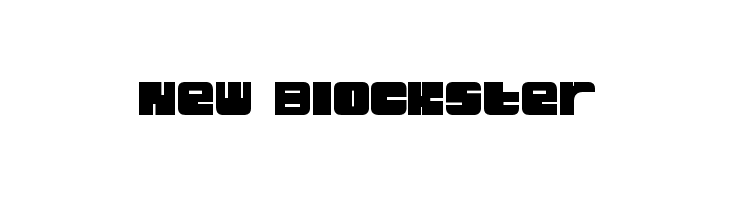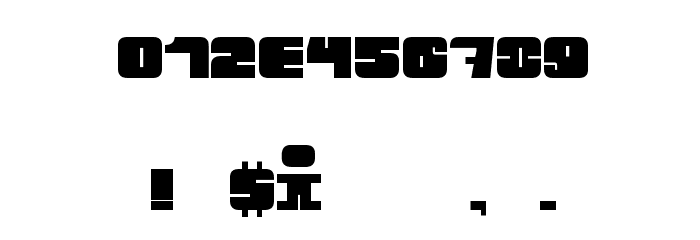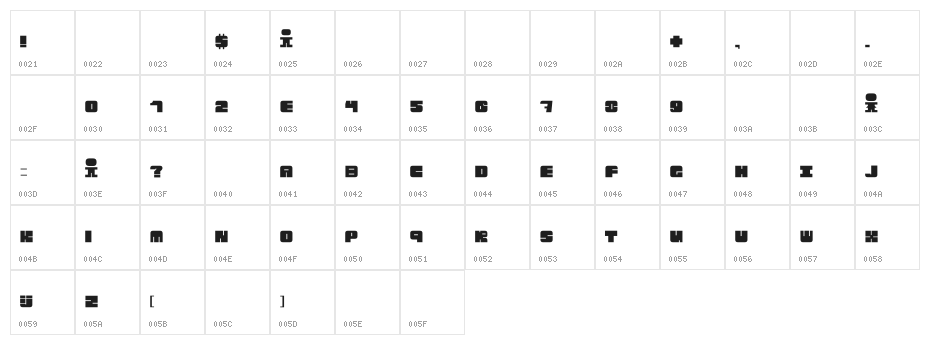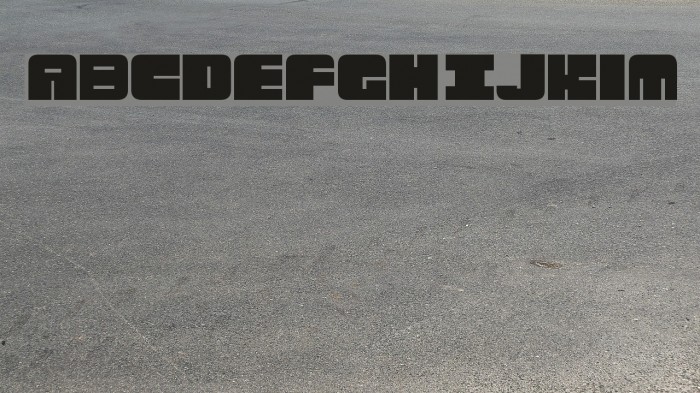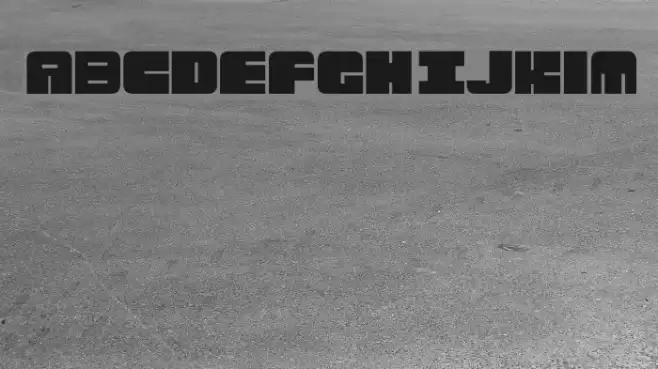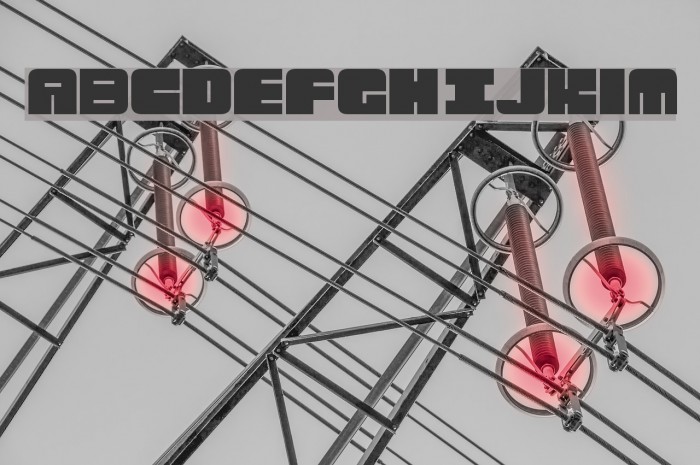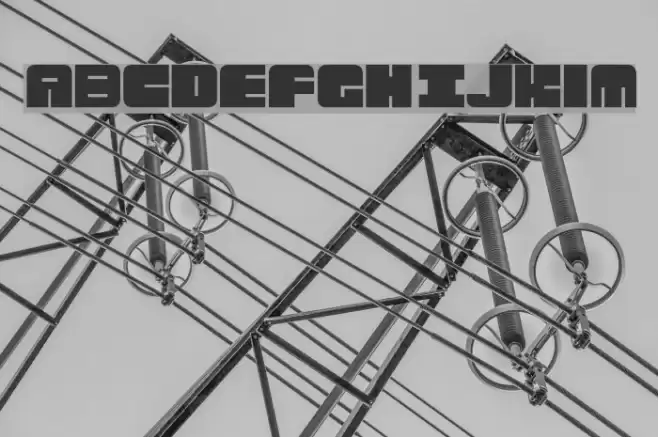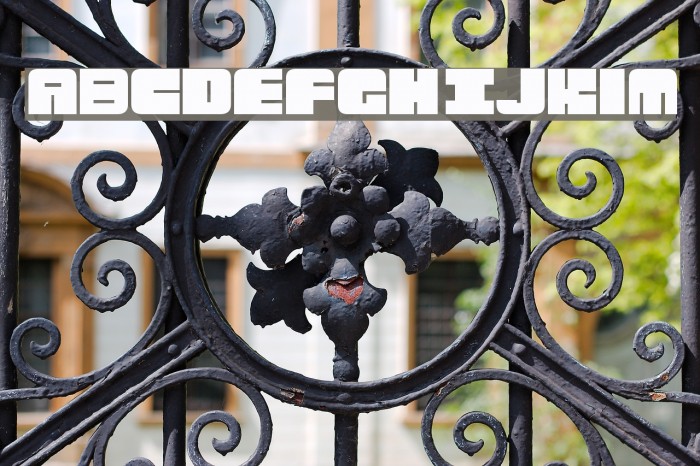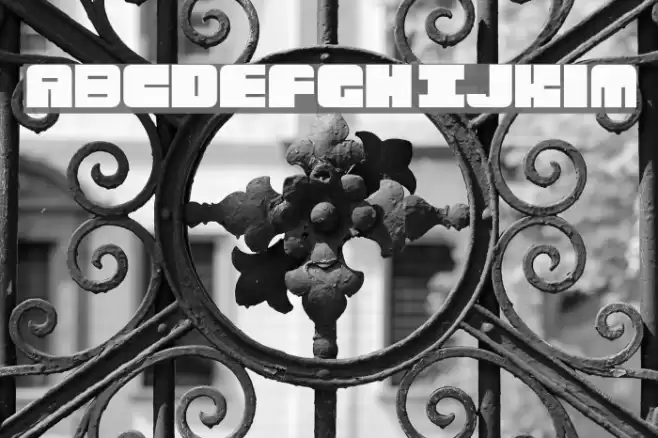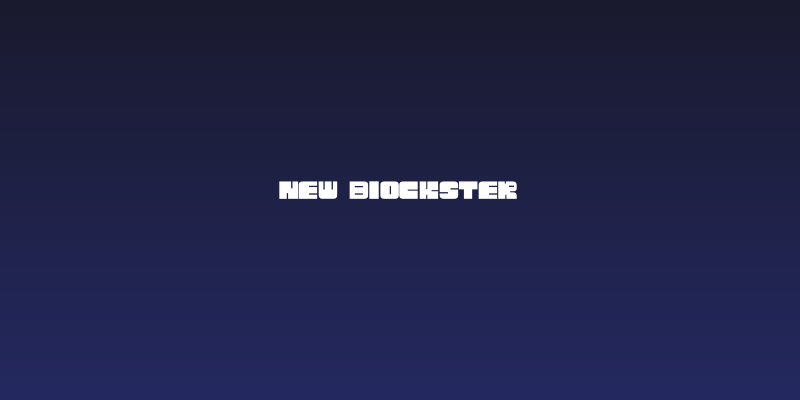
New Blockster Font
New Blockster Description
This font features a bold, blocky design with a modern and futuristic aesthetic. The characters are uniformly thick, with a strong geometric influence that gives them a sturdy and impactful appearance. The uppercase and lowercase letters maintain a consistent width, enhancing the font's cohesive look. The numbers and special characters follow the same design principles, ensuring uniformity across all glyphs. The overall style is highly decorative, making it ideal for attention-grabbing headlines or logos. Its unique style is both playful and assertive, suitable for projects that require a bold statement.
| Proposed Projects | Ideal for use in branding, posters, headlines, and any design requiring a strong visual impact. |